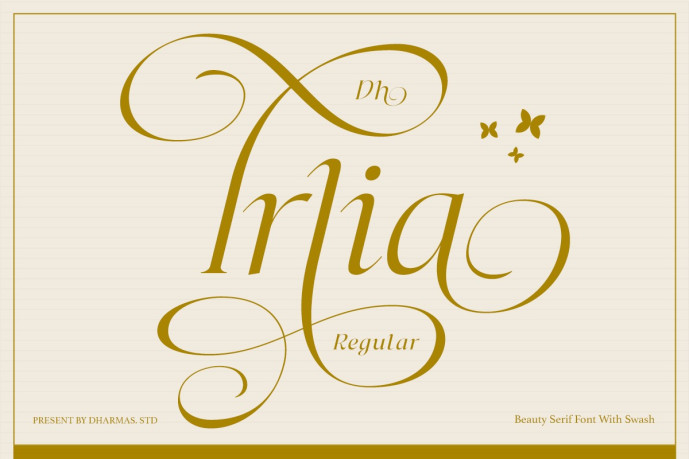
Irlia Branding Logo Font
Irlia Branding Logo Font is a luxury display serif font that combines refined swashes, graceful curves, and timeless sophistication. Perfect for wedding stationery, and upscale promotions, this weight strikes the perfect balance between elegance and readability. Its stylish forms bring a sense of exclusivity and refinement to any project.
This version includes only the Regular style, showcasing the core identity of the Irlia family with its luxurious aesthetic.
• 105+ Swash Alternates
• Letters, numbers, symbols, punctuation, special alternates